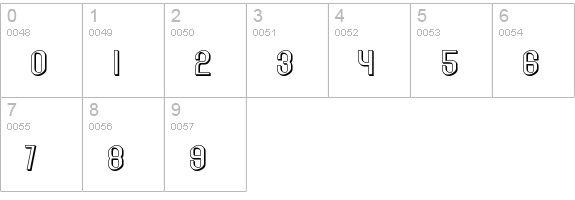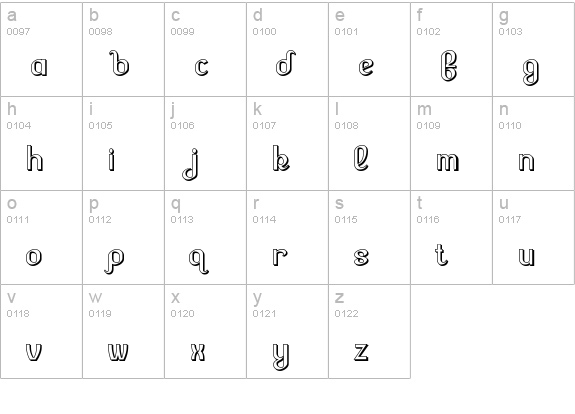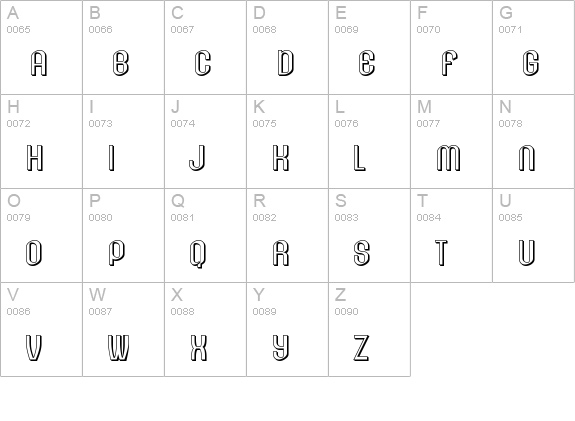
Lesser Concern Shadow Font Details
Lesser Concern Shadow font is a remarkable typeface that effortlessly combines elegance and edginess, making it perfect for a wide range of design projects. This font features a unique shadow effect that adds depth and dimension to any text, creating a visually striking look. Whether you're designing a poster, logo, or website, Lesser Concern Shadow font will undoubtedly catch the attention of your audience. The sleek and modern design of Lesser Concern Shadow font is complemented by its versatility. It can be used in both bold headlines and delicate body text, making it suitable for various applications. Its well-defined letterforms and intricate detailing make it a standout choice for branding, advertising, and any creative endeavor that requires a touch of sophistication. One of the most appealing aspects of Lesser Concern Shadow font is that it is available for free download at FontsMarket.com. This means that designers and enthusiasts alike can access this incredible font without any cost. With just a few simple clicks, you can enhance your projects with a font that exudes elegance and style. The attention to detail in Lesser Concern Shadow font is truly remarkable. Each letter is meticulously crafted, ensuring a seamless flow and perfect readability. The shadow effect adds a sense of depth and dimension, giving your text a three-dimensional appearance that is sure to captivate your audience. Whether you're creating a stunning graphic or adding a touch of elegance to your website, Lesser Concern Shadow font is the perfect choice. Its versatility, unique design, and free availability make it an essential tool for any designer or creative professional. Download Lesser Concern Shadow font today from FontsMarket.com and take your designs to the next level.